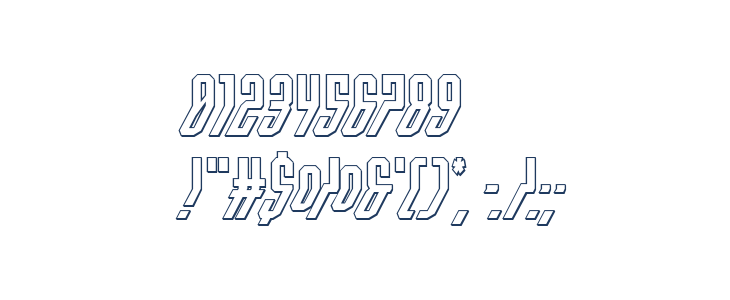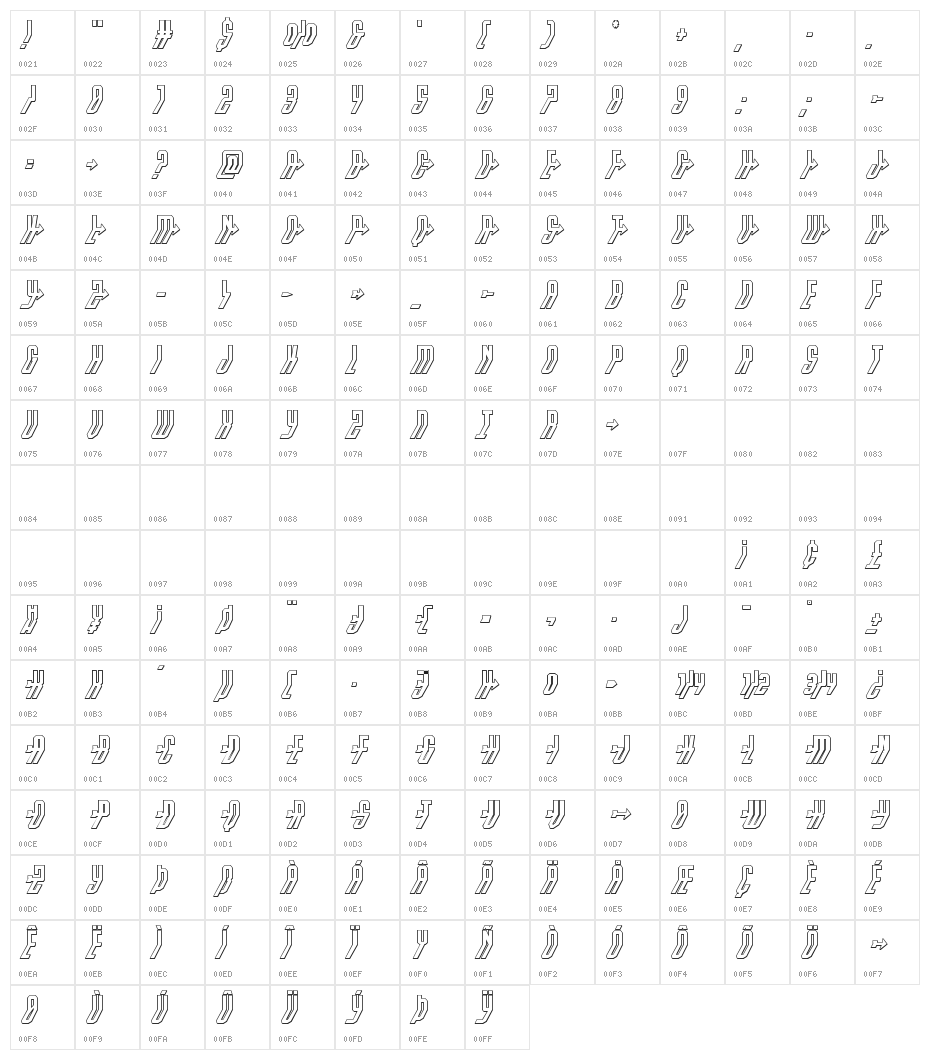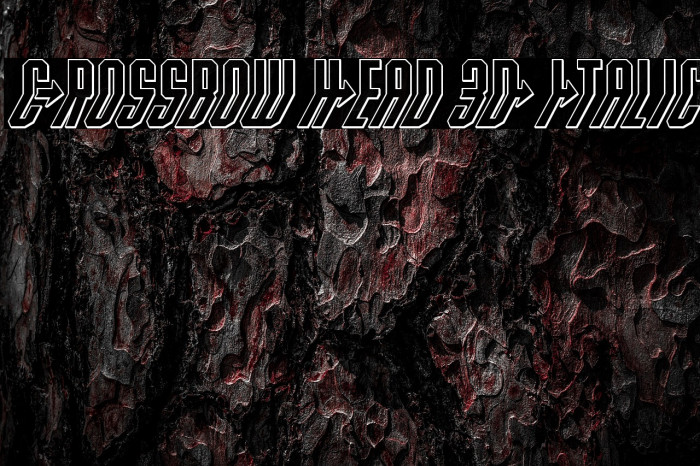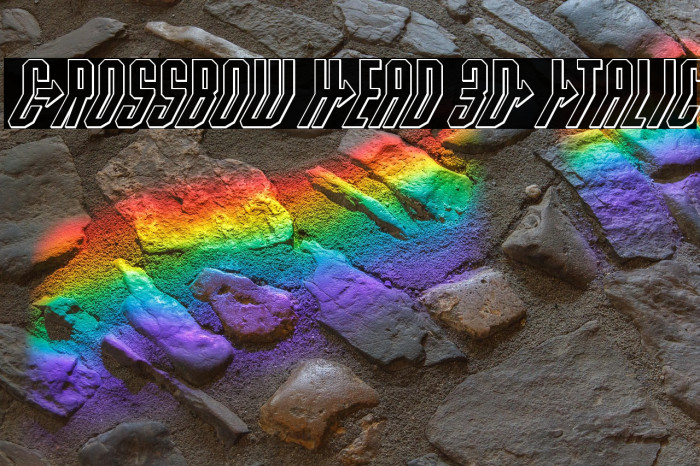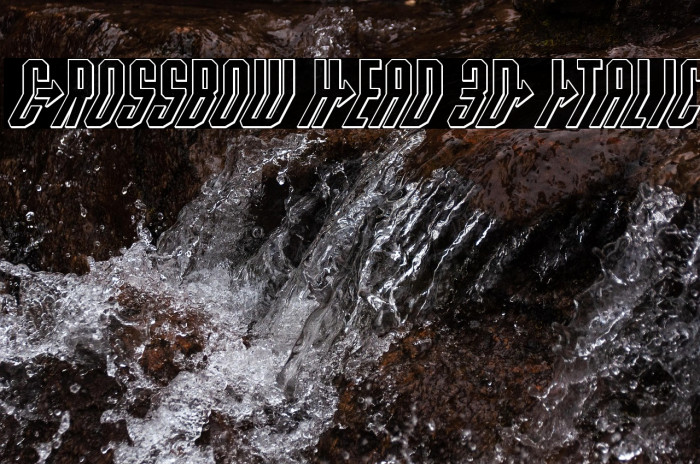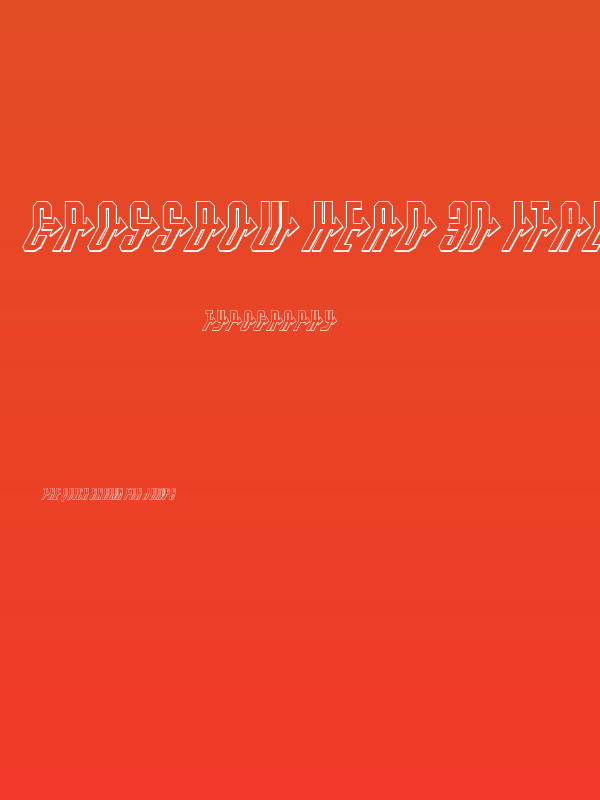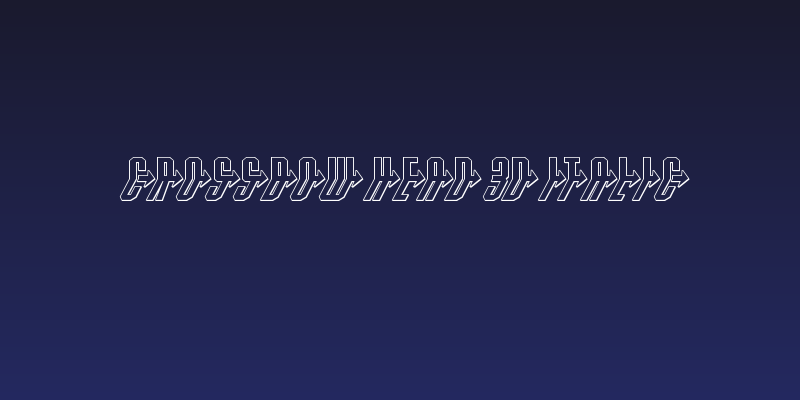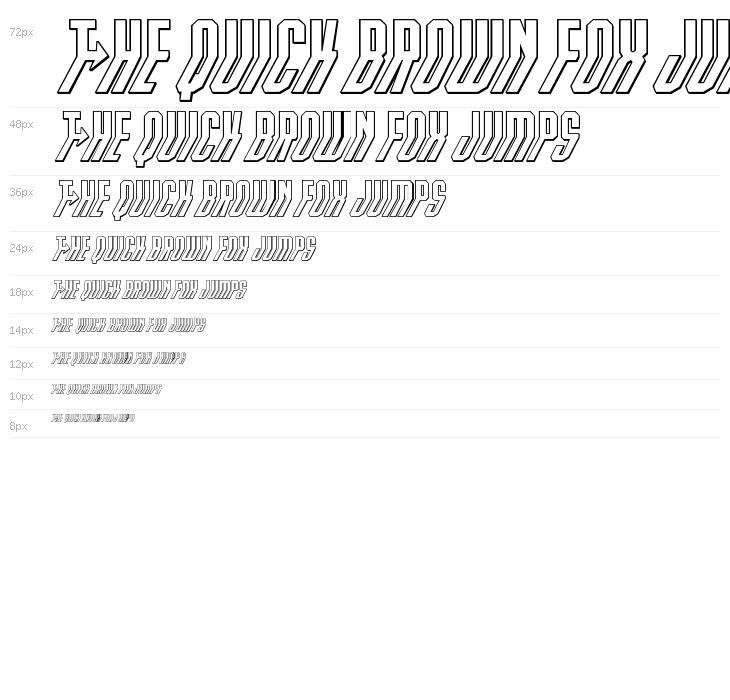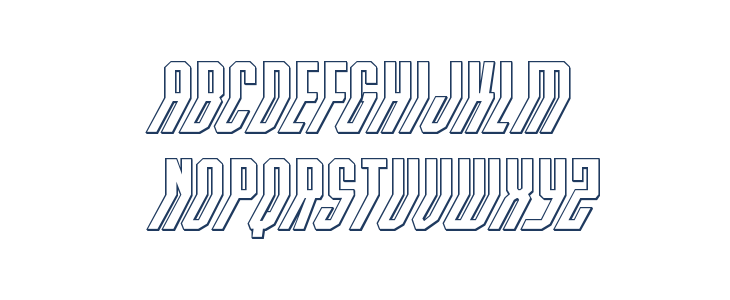
Crossbow Head 3D Italic Font
Crossbow Head 3D Italic Description
This font features a bold, angular design with a distinct 3D effect, giving it a futuristic and dynamic appearance. The letters are italicized, adding a sense of motion and speed. Each character is outlined, enhancing the 3D illusion and making the font stand out. The geometric shapes and sharp edges contribute to its modern and edgy style. The uppercase and lowercase letters maintain a consistent design, while the numbers and special characters complement the overall aesthetic. This font is ideal for projects that require a bold and impactful visual statement.
| Proposed Projects | Ideal for video game titles, sci-fi movie posters, tech branding, and sports team logos. |